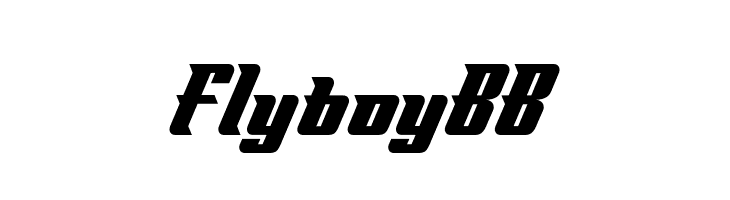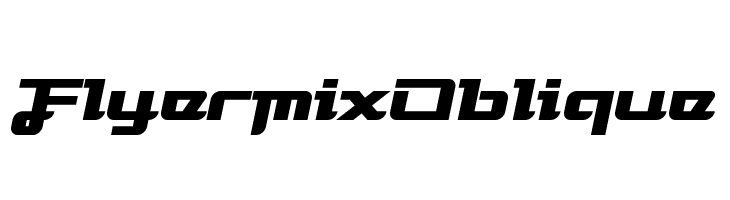
A bold, playful typeface with rounded, bubbly characters.
A whimsical font with letters integrated into airplane designs, perfect for creative projects.
A decorative font featuring intricate bird illustrations for each character.
A decorative font with stylized human figures in various playful poses.
A bold, angular font with a dynamic, forward-leaning style.
A bold, angular font with a dynamic, slanted style.
A bold, geometric font with a futuristic and modern design.
A bold, futuristic font with angular, oblique characters.
A playful, handwritten font with thin, elongated strokes and a whimsical style.
A playful, balloon-like font with rounded, bold characters and a whimsical style.